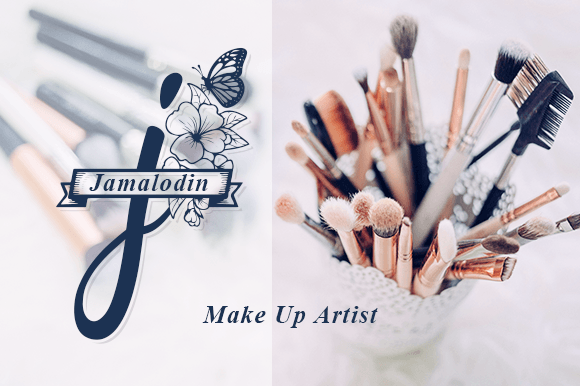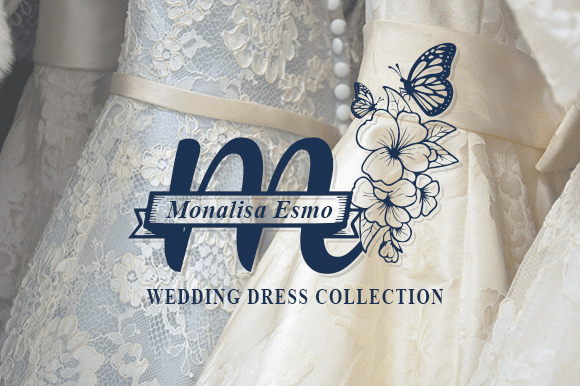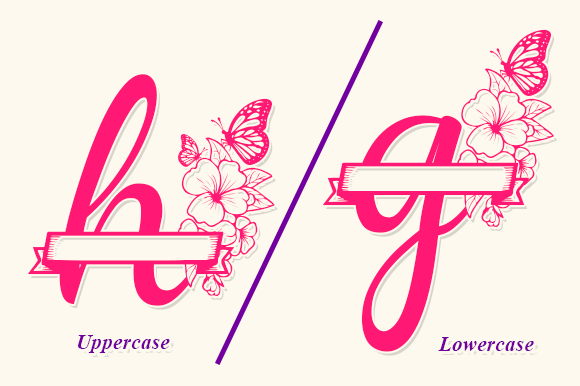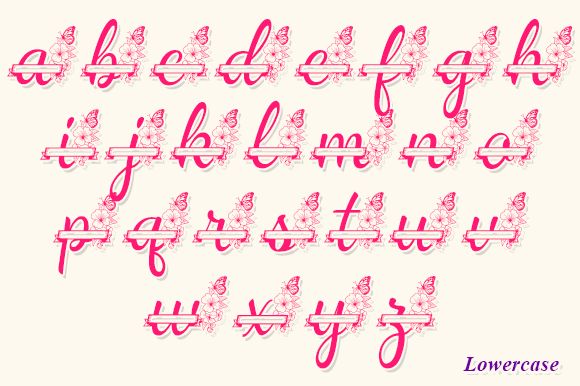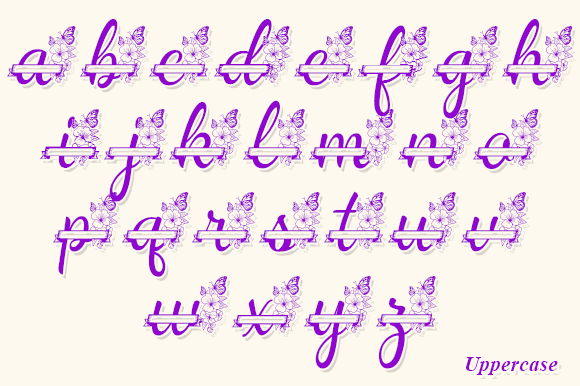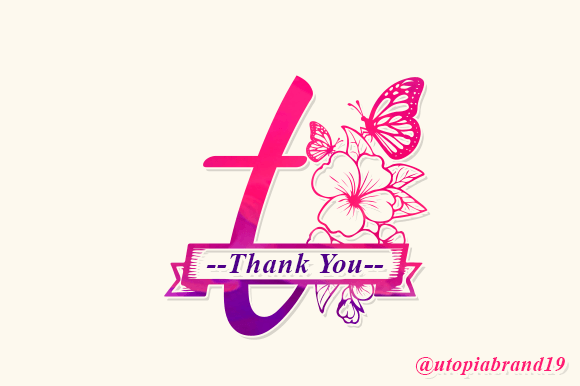
Unleashing Whimsy: The Magic of Baby Flower Monogram Font
As designers, we’ve all been there – staring at a blank page, waiting for that elusive spark of creativity to strike. For me, it often begins with a simple flourish, a delicate curve, or an ornate detail that transports me to a world of elegance and charm. And that’s exactly what the Baby Flower Monogram Font does – it awakens a sense of whimsy and romance, perfect for crafting one-of-a-kind designs that capture the essence of love and celebration.
At its core, the Baby Flower Monogram Font is a beautiful decorative font that combines lovely ornaments with an authentic feel, making it an ideal choice for creating stunning wedding invitations, beautiful stationery art, eye-catching social media posts, and adorable greeting cards. For designers, this font is a valuable addition to their toolkit, offering a unique way to express their creativity and add a touch of sophistication to their projects.
Baby Flower Monogram Font Key Features
- Unique Characteristics: Delicate, hand-drawn design featuring intricate floral patterns and soft, rounded edges, perfect for creating a whimsical and feminine look.
- Monogram Style: Customizable monogram font with interchangeable letters, allowing users to create personalized designs for various occasions, such as baby showers and weddings.
- Style and Versatility: Suitable for various design projects, including invitations, greeting cards, scrapbooking, and digital graphics, thanks to its elegant and playful nature.
- Easy Customization: Includes a comprehensive character set, allowing users to easily replace individual letters and create custom designs with ease.
Baby Flower Monogram Font Review
Overall, I think the Baby Flower Monogram Font is a lovely and delicate script font, perfect for creating adorable and feminine designs. ✨ The font’s unique, hand-drawn style gives it a charming and whimsical feel that’s ideal for baby-related projects, such as nursery decor, baby shower invitations, and more.
The font includes a wide range of letters and symbols, including uppercase and lowercase letters, numbers, and punctuation marks. ✨ It also comes with a range of monogram layouts and designs, making it easy to create custom monograms for babies and kids.
- Delicate and feminine design
- Unique, hand-drawn style
- Wide range of letters and symbols
- Customizable monogram layouts
- ⚠️ Limited font weights and styles
- ⚠️ May not be suitable for bold or dramatic designs
- ⚠️ Some users may find the font too cursive or hard to read
Overall, I think the Baby Flower Monogram Font is a great choice for designers looking to create adorable and feminine designs. While it may have some limitations, its unique style and wide range of customization options make it a versatile and valuable addition to any design library.
The Baby Flower Monogram Font is perfect for:
Personalized baby gifts and decorations.
Customized baby blocks and wall art.